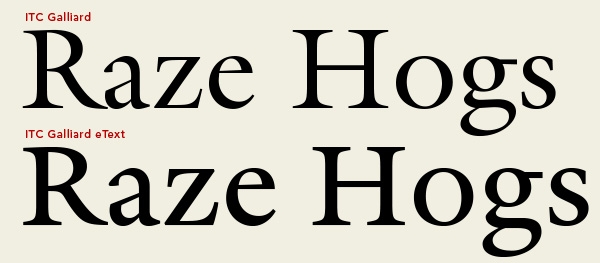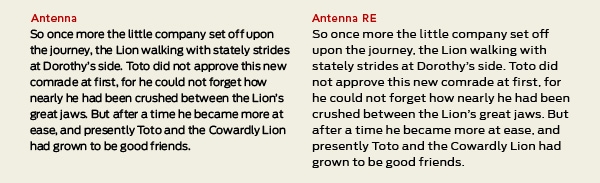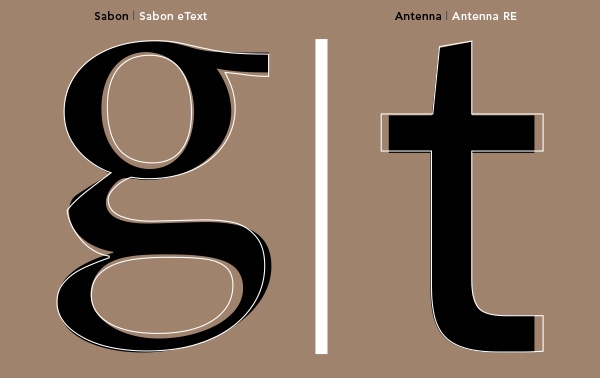
Print vs Web fonts: What’s the difference?
Q What is the difference between the fonts I use for print, and the web font version of the same design? Do I need both, and are they interchangeable?
A Although they both might be based on the same design, there are usually differences in the design, spacing, and licensing of each. Fonts intended for use on the web are optimized and often modified to enhance readability and performance onscreen in a variety of digital environments. This can include a taller x-height (or reduced ascenders and descenders), wider letterforms, more open counters, heavier thin strokes and serifs, reduced stroke contrast, as well as modified curves and angles for some designs. Another important adjustment – especially for fonts intended for smaller sizes – is more open spacing. All of these factors serve to improve character recognition and overall readability in the non-print environment, which can include the web, ebooks, ereaders, and mobile devices.
Web fonts come in two varieties: unique designs formulated specifically for the web, and optimized versions of desktop fonts. Unique designs have the advantage of being developed specifically for maximum readability and performance in a digital environment. The possible downside is there might not be a corresponding desktop version tailored for use in print.
The second category – desktop fonts optimized for the web – is the largest of the two as foundries scramble to make their font collections available for use onscreen. The advantage of these is that using the same typeface design (albeit different fonts) for both web and print allows for consistent branding and uniform typographic presence across all media.
It is important to note that the optimization from desktop font to the web can be done on an individual basis resulting in a high-quality conversion, or it can be completely automated, sometimes resulting in poor performance and readability. Therefore, be sure to view your intended font choices at the full range of sizes they will be used at (especially the smallest size) and test on the full range of devices, platforms, screen sizes, resolutions, etc.
Some foundries offer web fonts designed for particular sizes and devices. For instance, Monotype’s e-Reading collection consists of new and existing designs crafted specifically for onscreen reading. Some are reworked classics, such as Galliard, Sabon, Baskerville and Palatino, while others are entirely new designs. More and more foundries and web font services are offering size-specific web fonts, so be sure to check them out before making your selection.
ITC Galliard and ITC Galliard eText, a member of Monotype’s eText Collection, vary considerably. The eText version has been enhanced for onscreen reading with a slightly taller x-height, a less pronounced weight contrast, proportionally heavier thin strokes and serifs, and an overall heavier appearance.
Font Bureau’s Antenna, a stylish square sans design, has been optimized for onscreen reading as part of their Reading Edge™ Series, and consequently named Antenna RE. The overall design appears the same at first glance, but the more generous letter spacing and some skillful design tweaks contribute to a much more readable typeface for text.
The differences between the ITC Galliard originally intended for print and ITC Galliard eText, an enhanced version for onscreen reading, are considerable as seen in the comparison on the left. On the other hand, Antenna – a contemporary sans with very moderate weight contrast – required fewer major design changes in its transition to Antenna RE. One modification noticeable upon magnification is the extended crossbar and tail of the lowercase t.